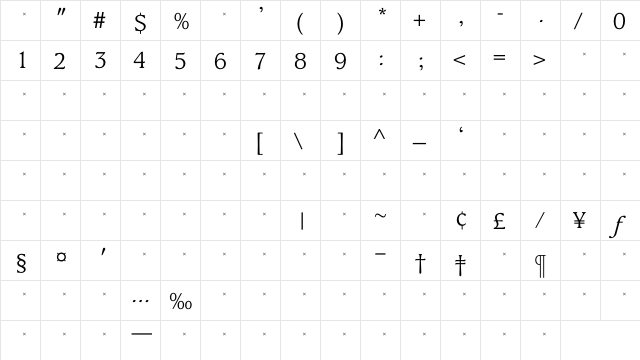
KingsrowLightTab Regular Font Preview
KingsrowLightTab Regular
Design Context for KingsrowLightTab Typeface
KingsrowLightTab offers clean, dependable letterforms without strong stylistic allegiance, making it a practical choice for designers who need flexibility. Its slender proportions lend an understated elegance to any composition.